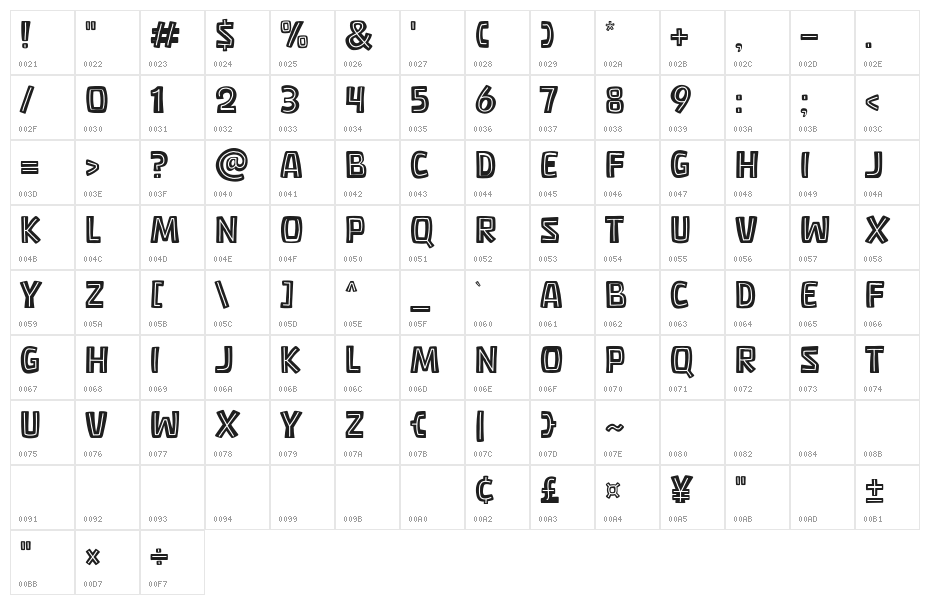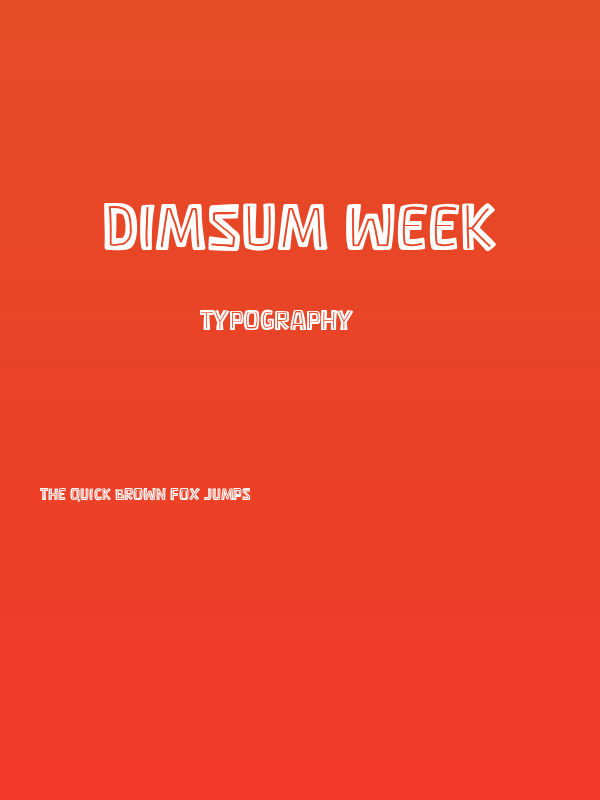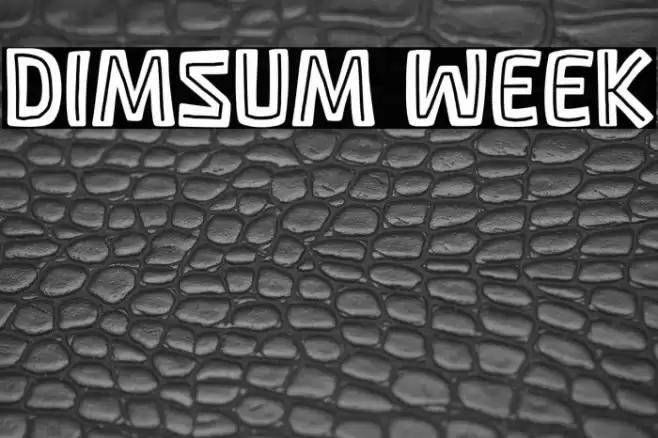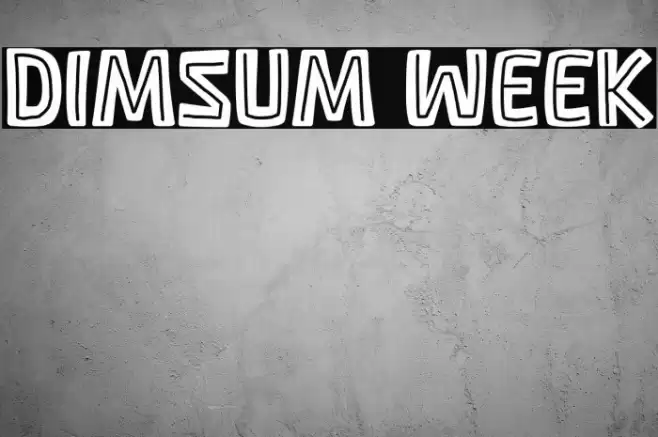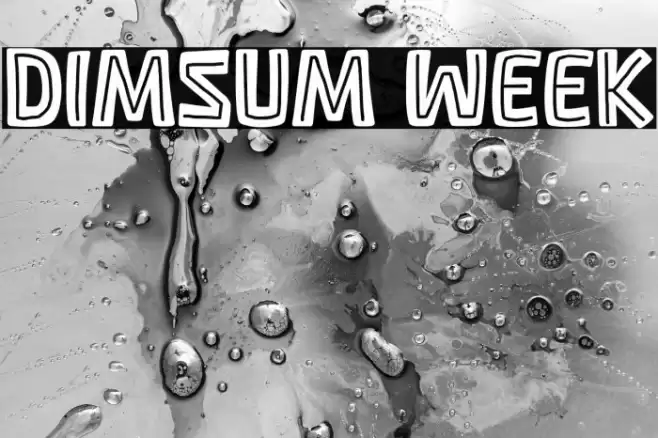
Dimsum Week Font
Dimsum Week Description
This font features a bold, playful style with a hand-drawn appearance. The characters are outlined, giving them a three-dimensional effect that adds depth and visual interest. The uppercase and lowercase letters maintain a consistent style, with rounded edges and a slightly irregular shape that enhances the casual, friendly feel. The numbers and special characters follow the same design principles, ensuring a cohesive look across all glyphs. This font is ideal for projects that require a fun and approachable aesthetic.
| Overall Style | Playful, Hand-drawn |
| Proposed Projects | Perfect for children's books, playful branding, posters, and event invitations. |